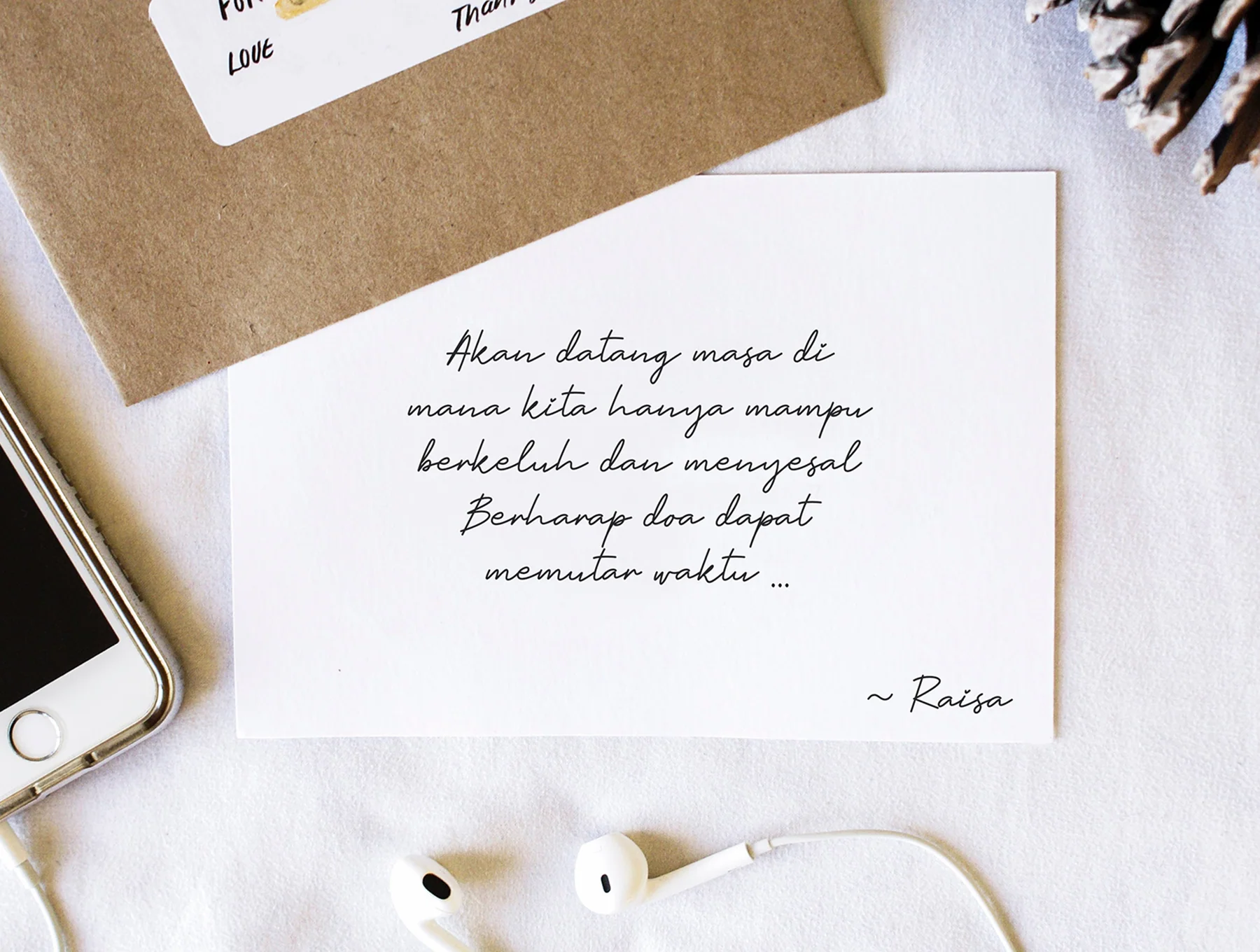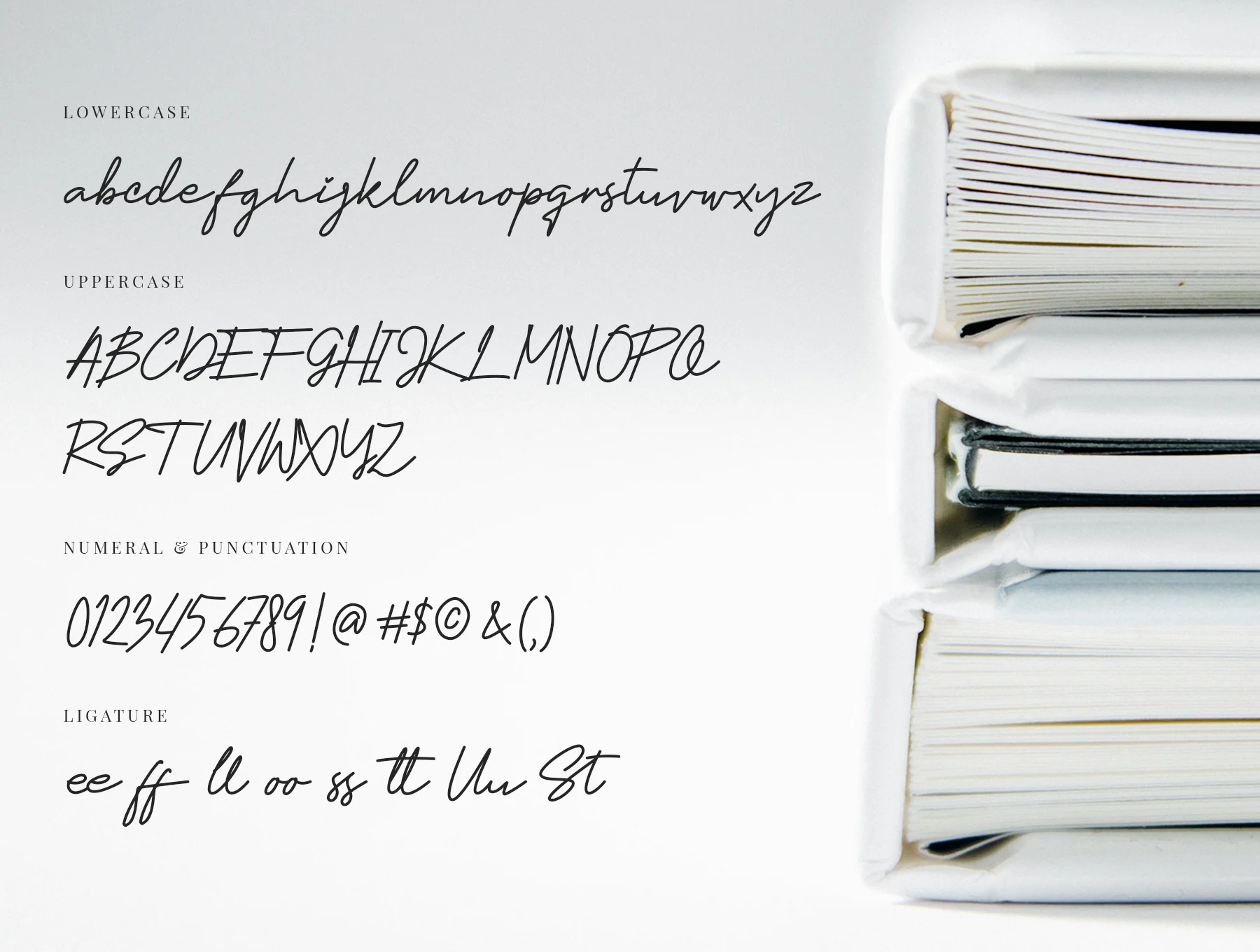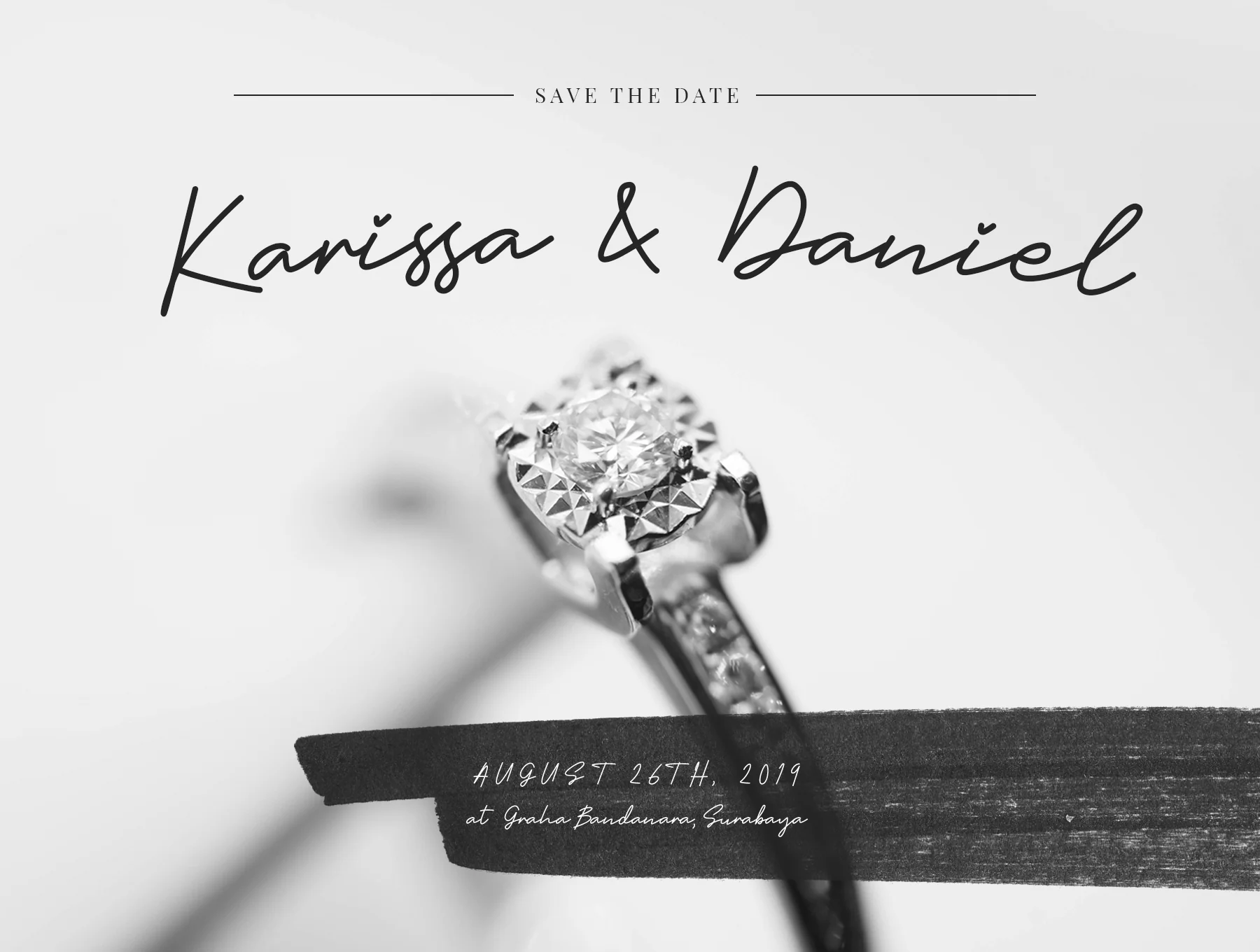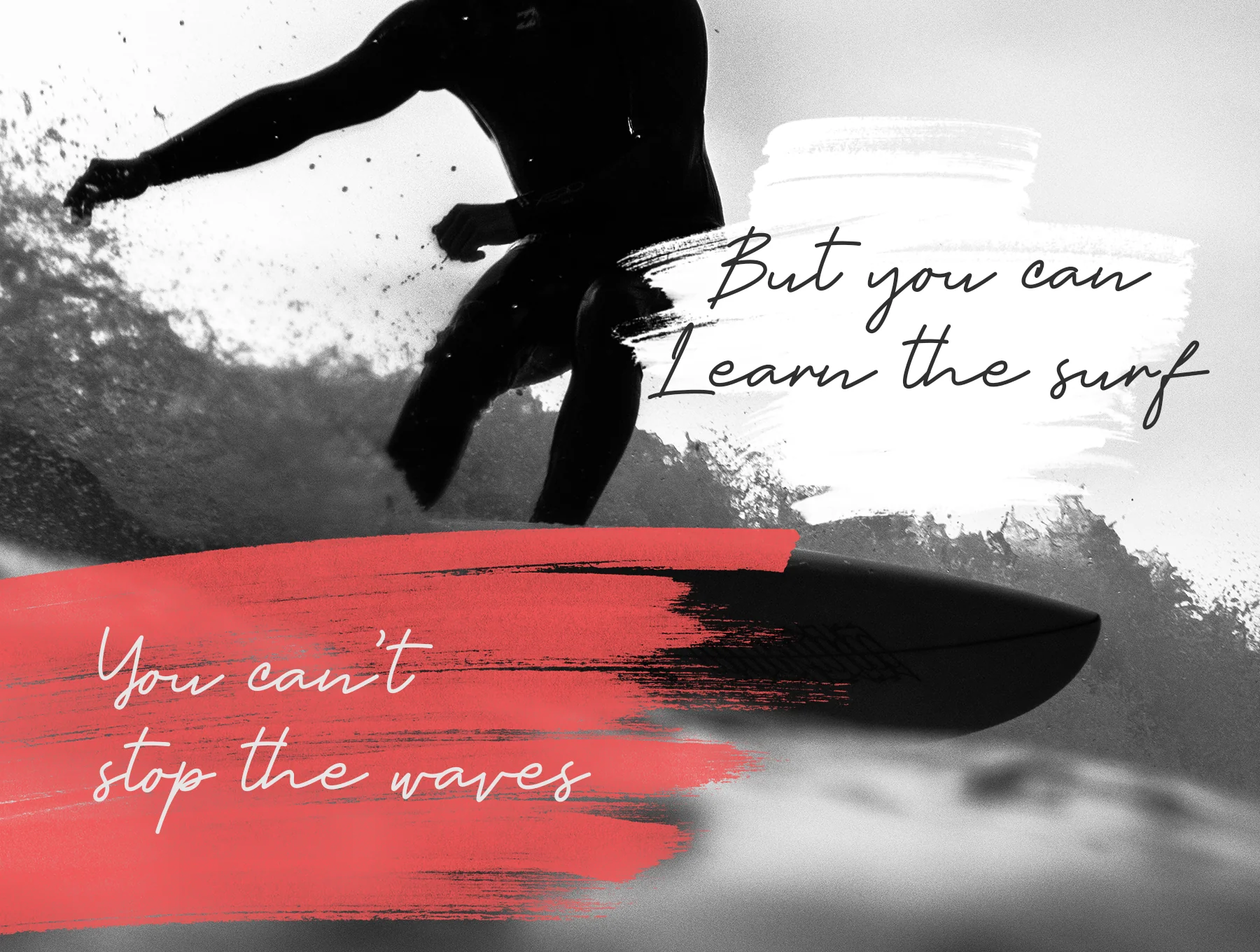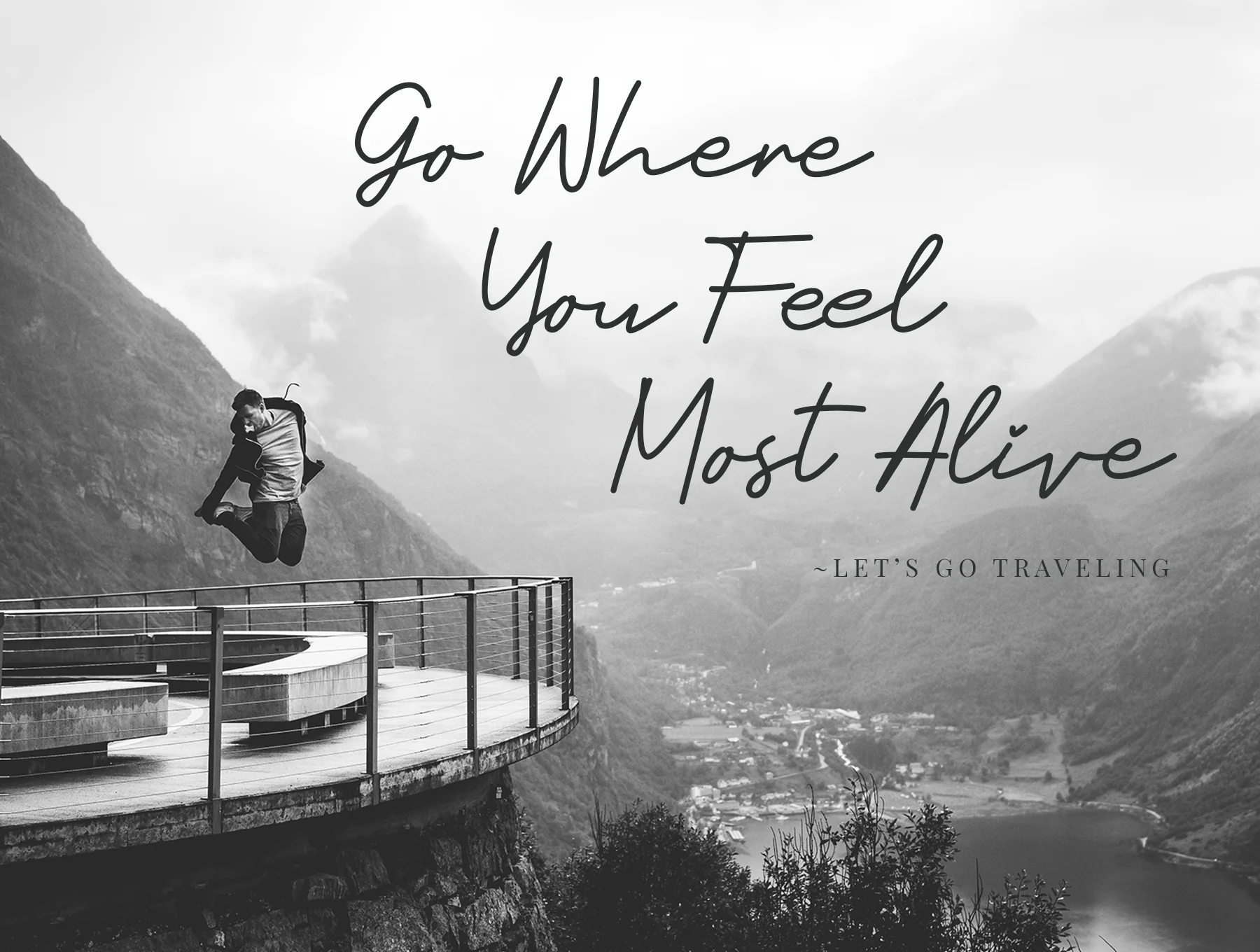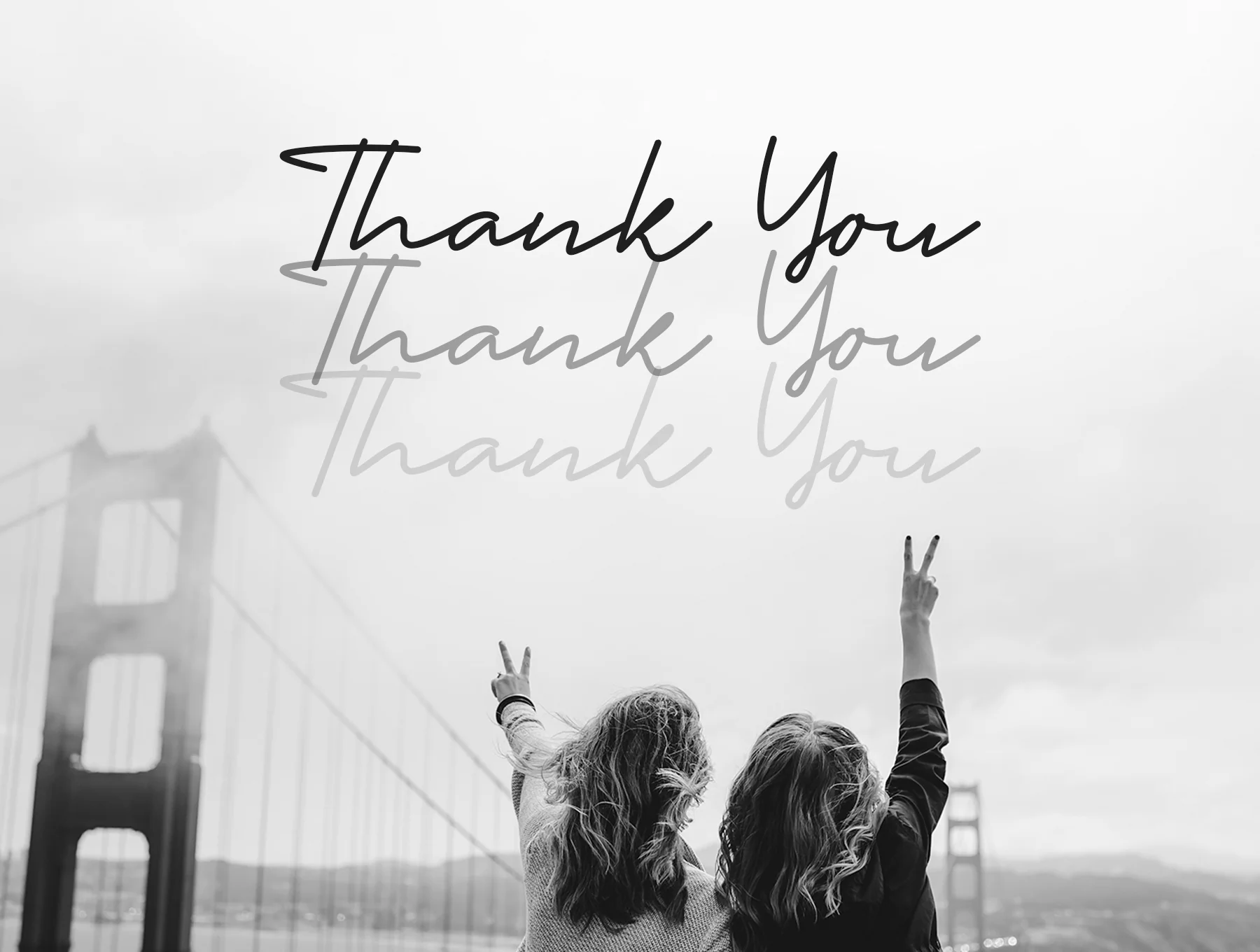
Sarmilla Font
Hand-drawn cursive typeface
Includes ligature support
Sarmilla Font was inspired by memories of learning handwriting for the first time in junior high school. That early writing style has now been transformed into a usable font for everyone. Includes ligatures: ee, ff, ll, oo, ss, tt, Uu, St.